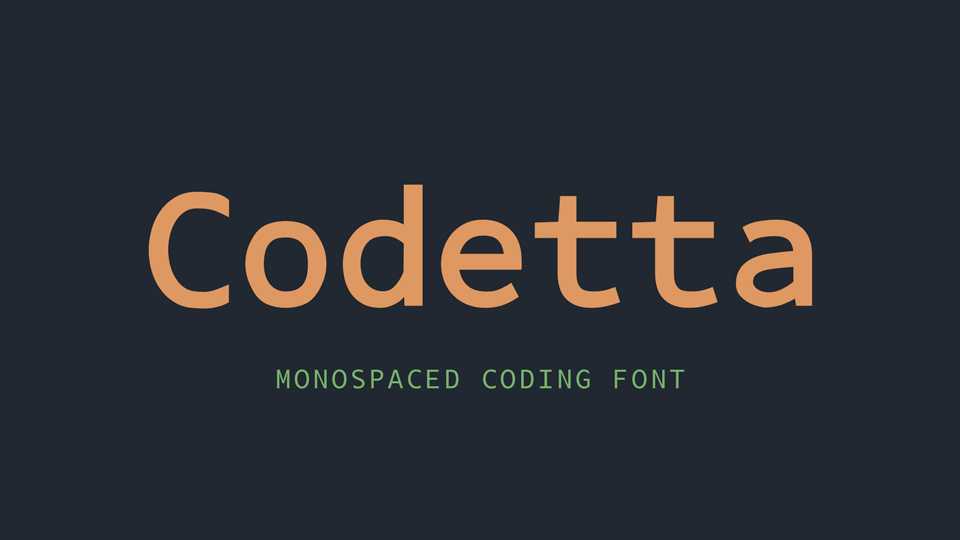
Download Codetta font, a monospaced coding typeface in 4 styles with special ligatures for C#. Codetta combines special operators and 8 further combinations to ligatures to improve code readability and productivity.
Designer: Ulrich Proeller